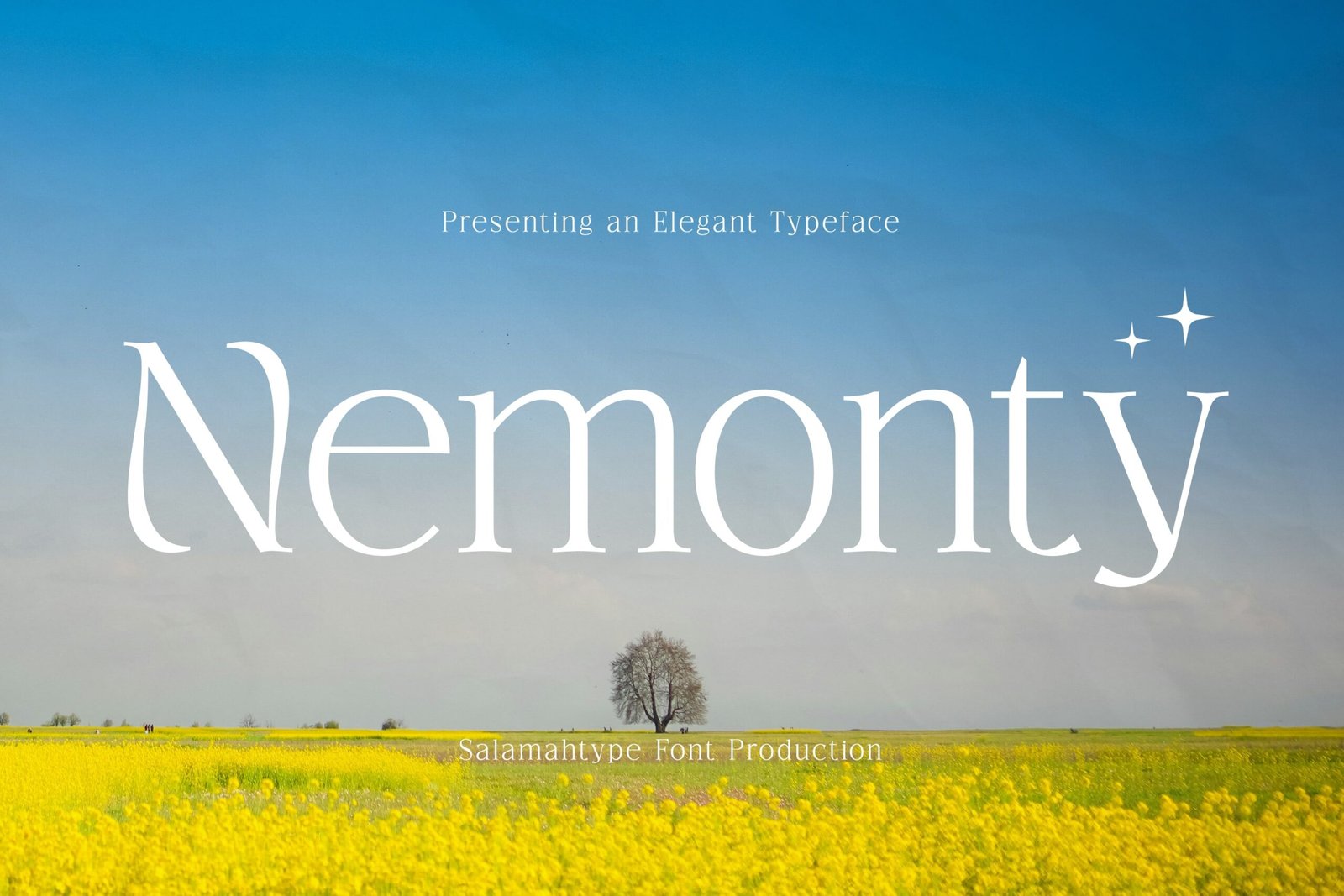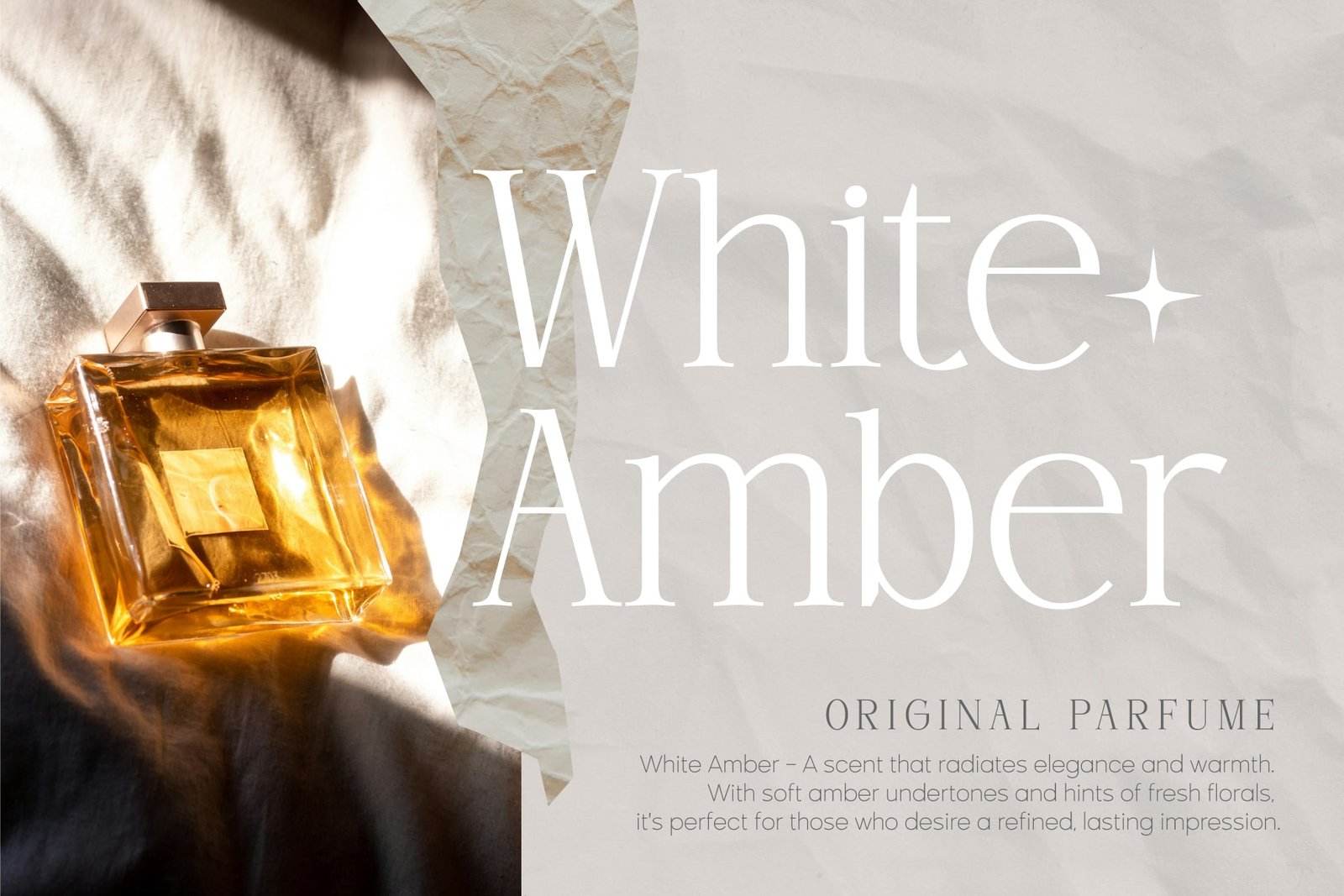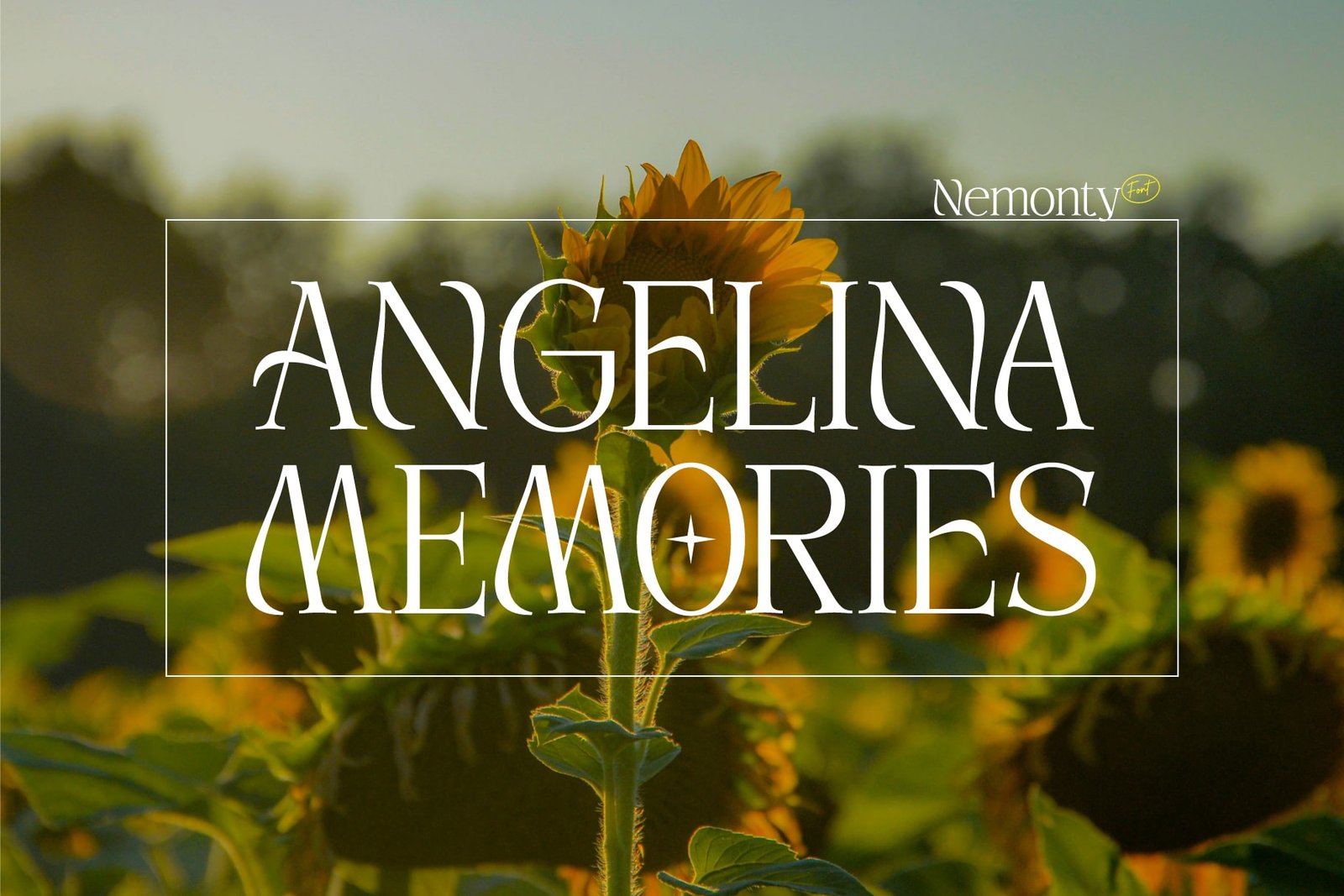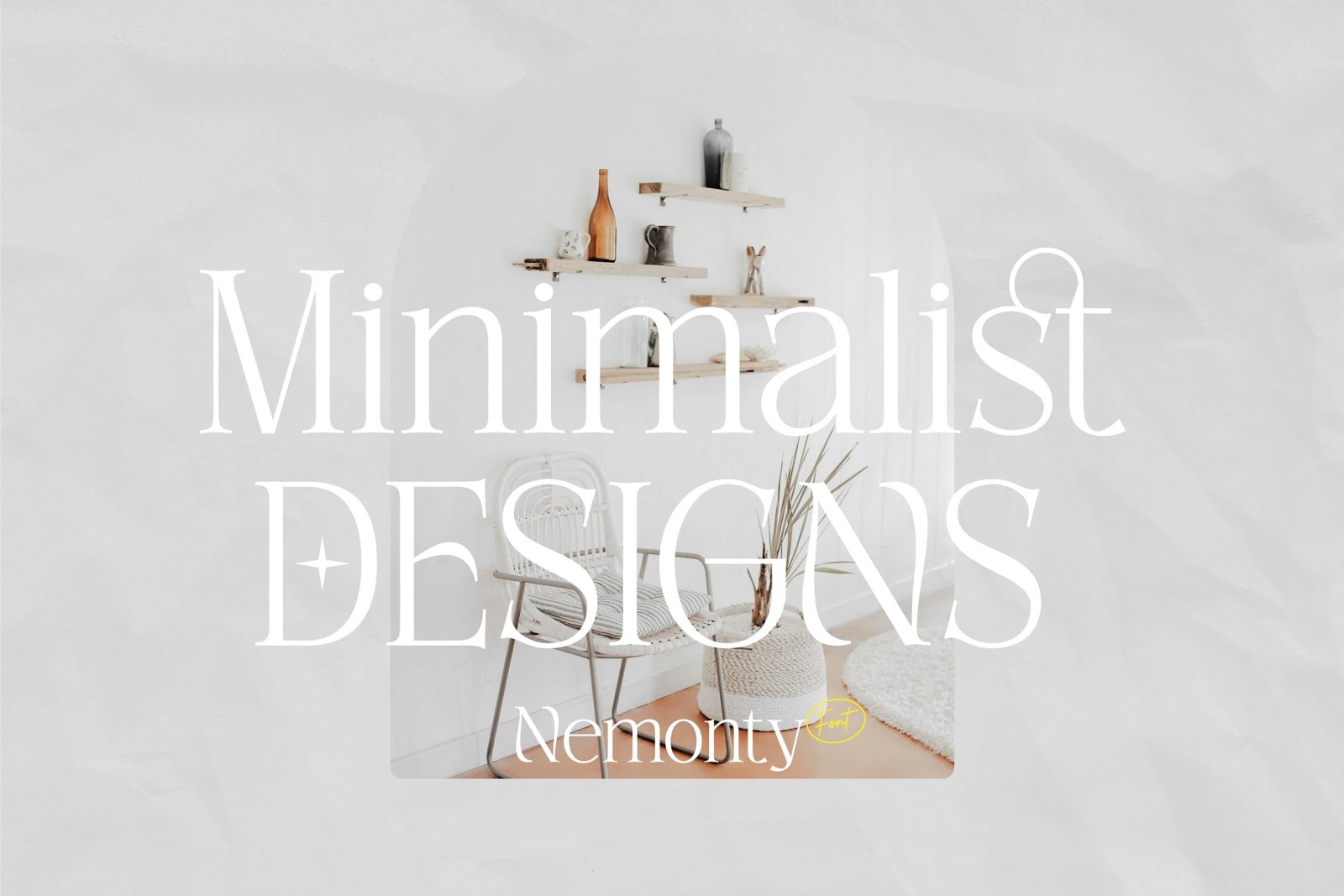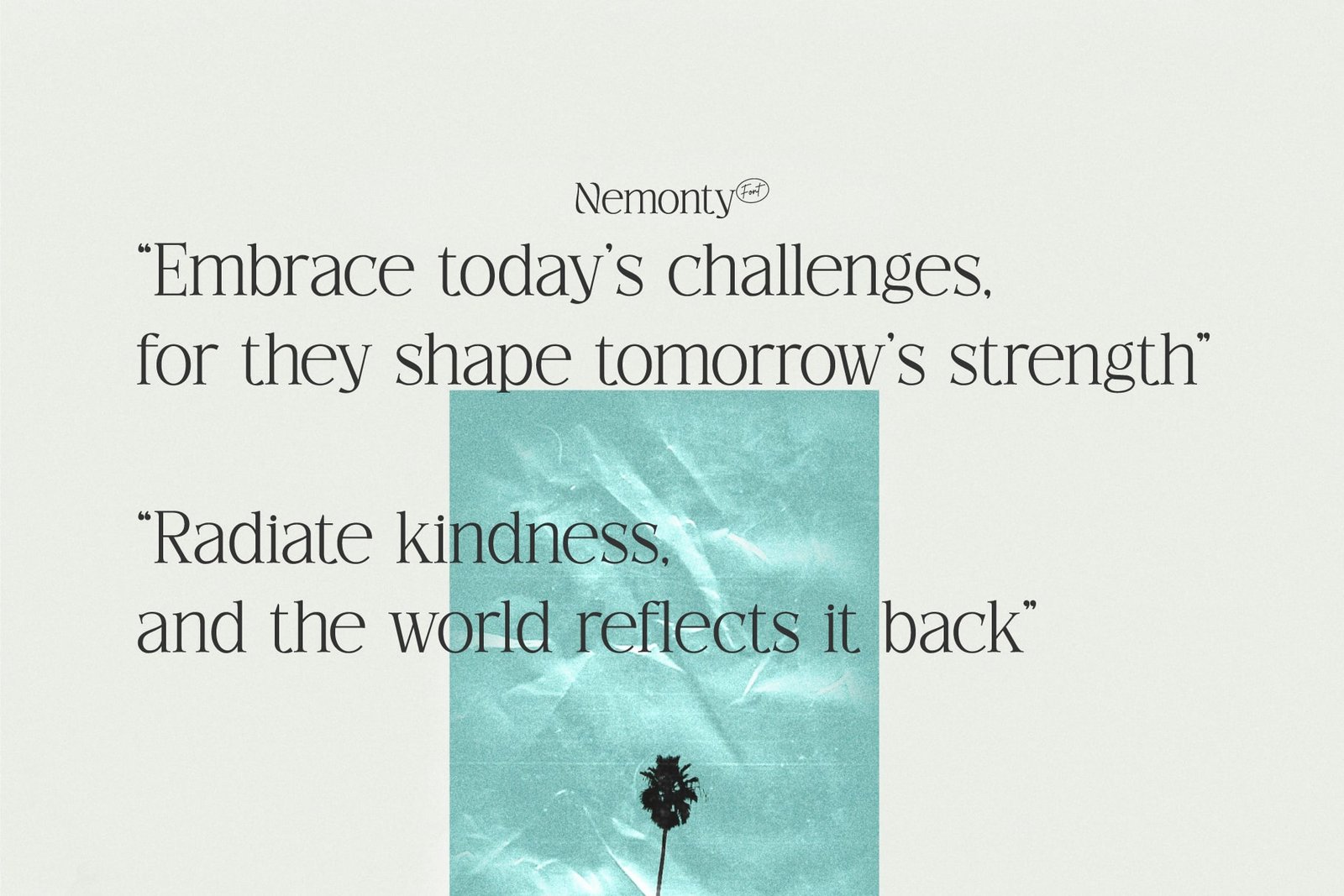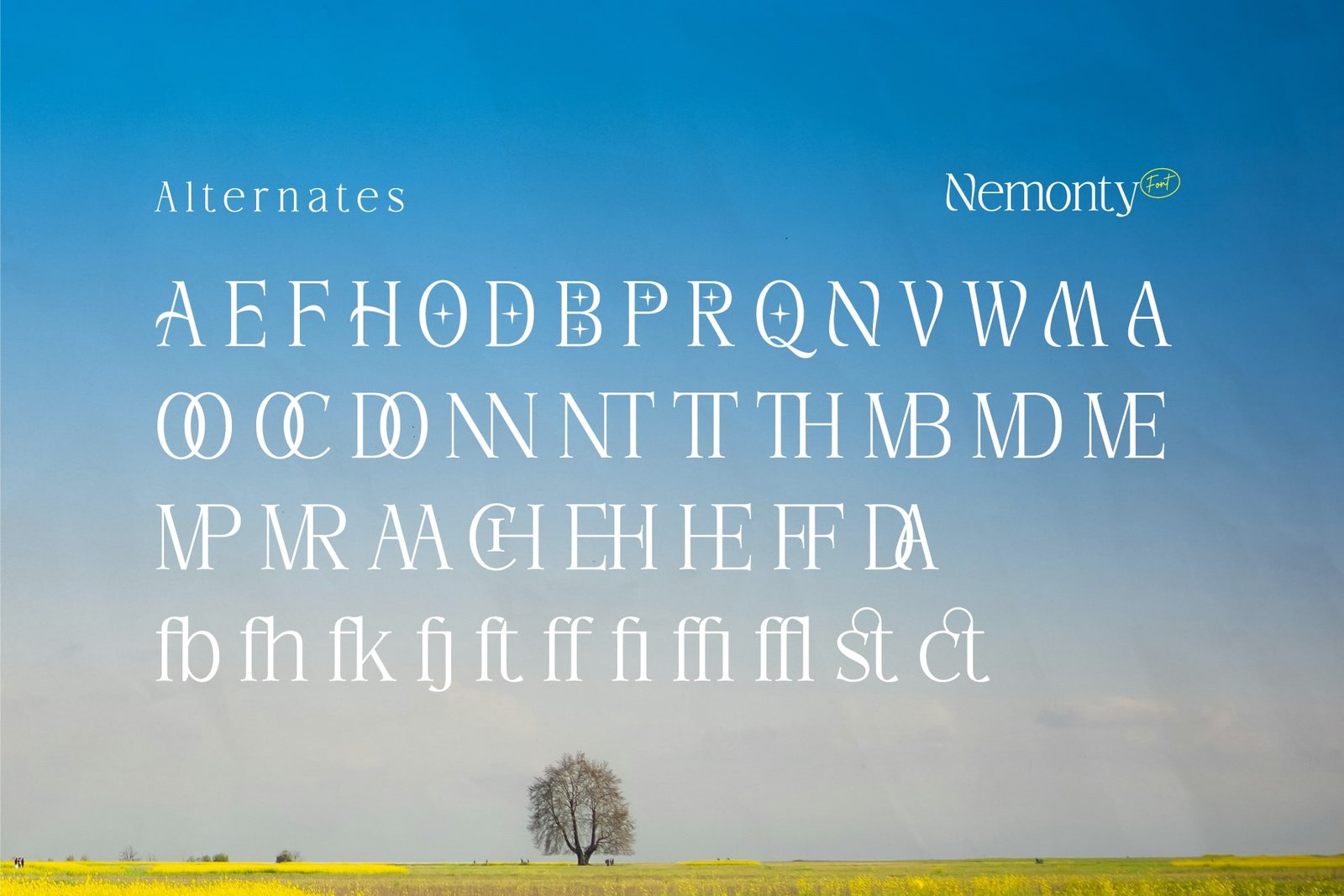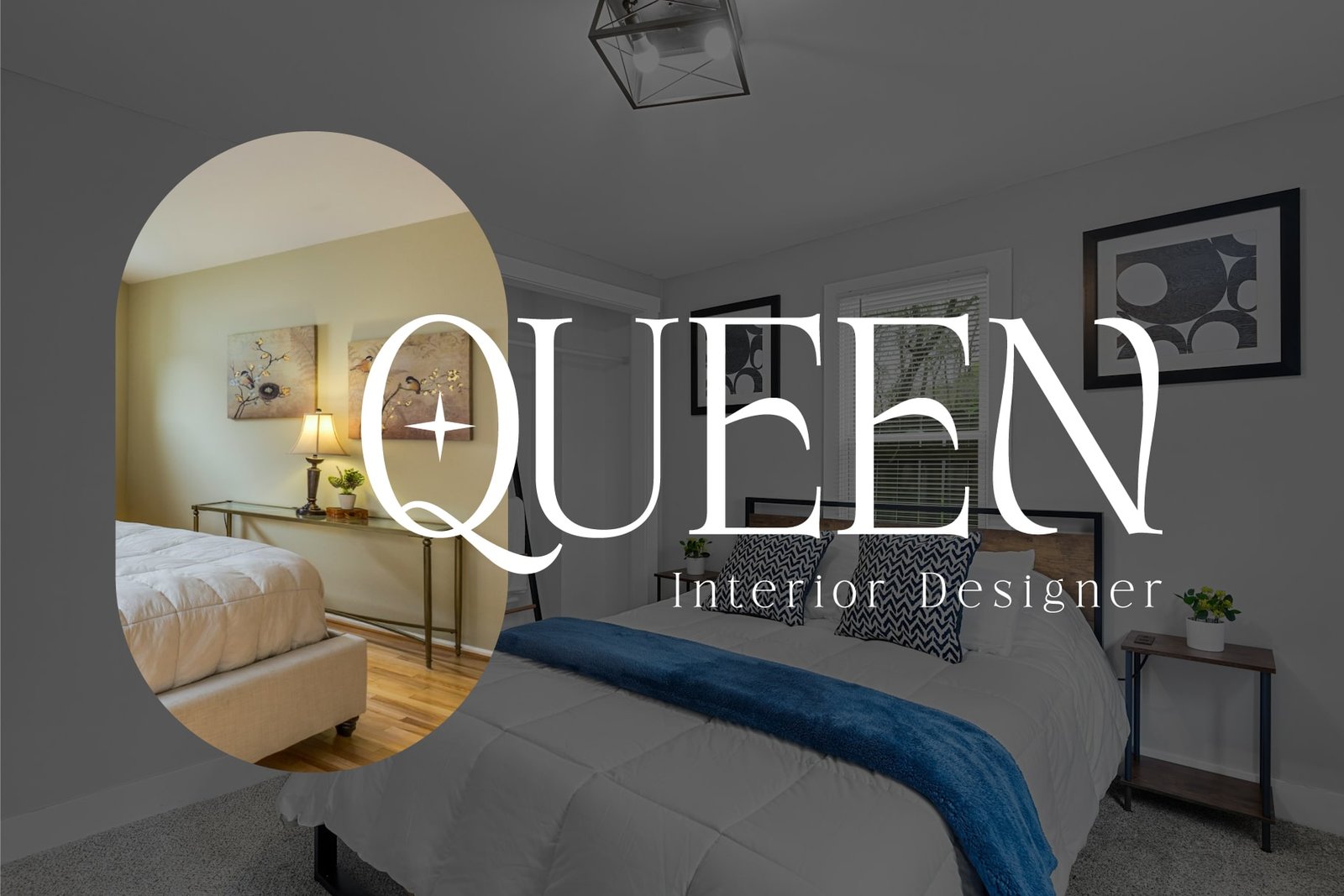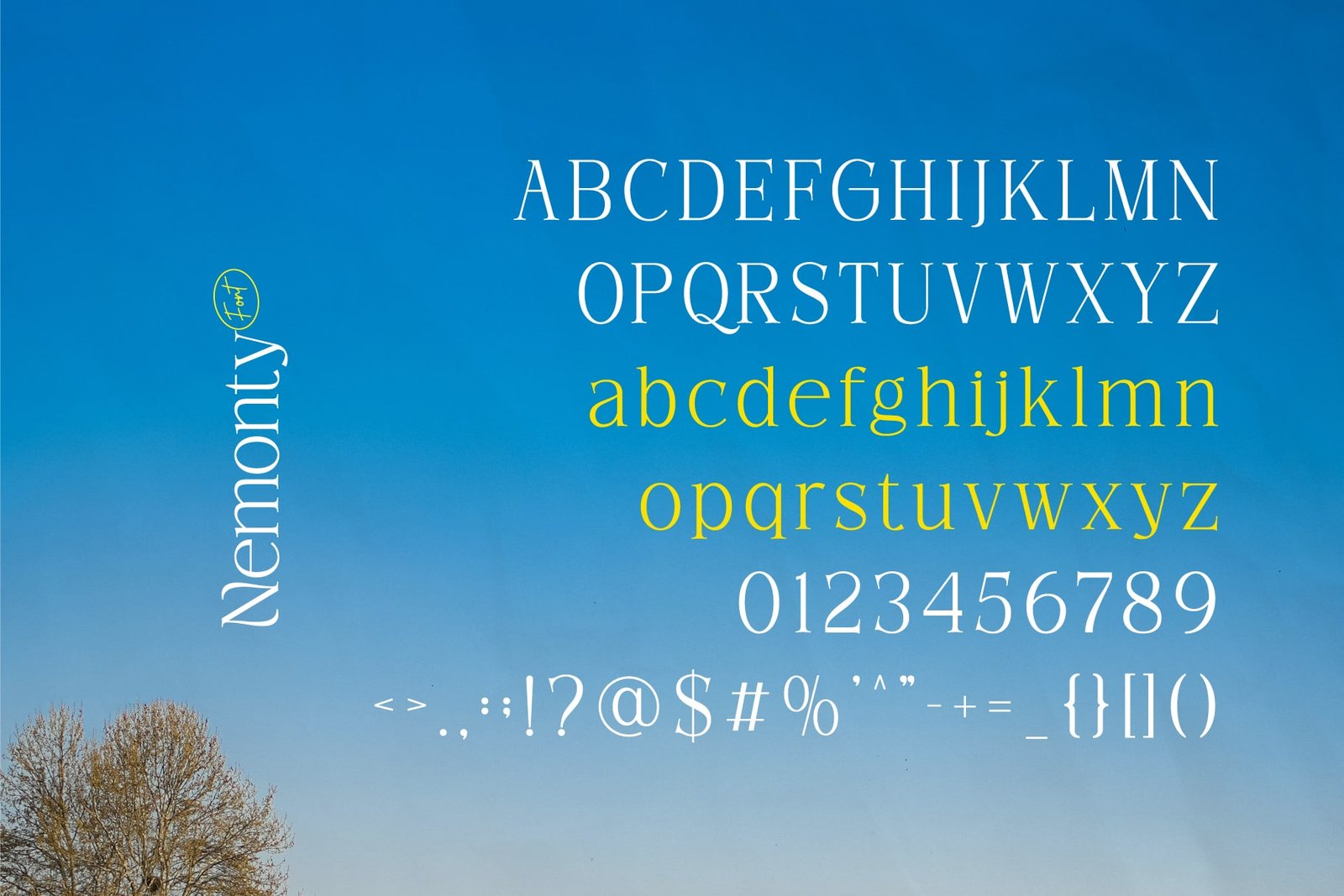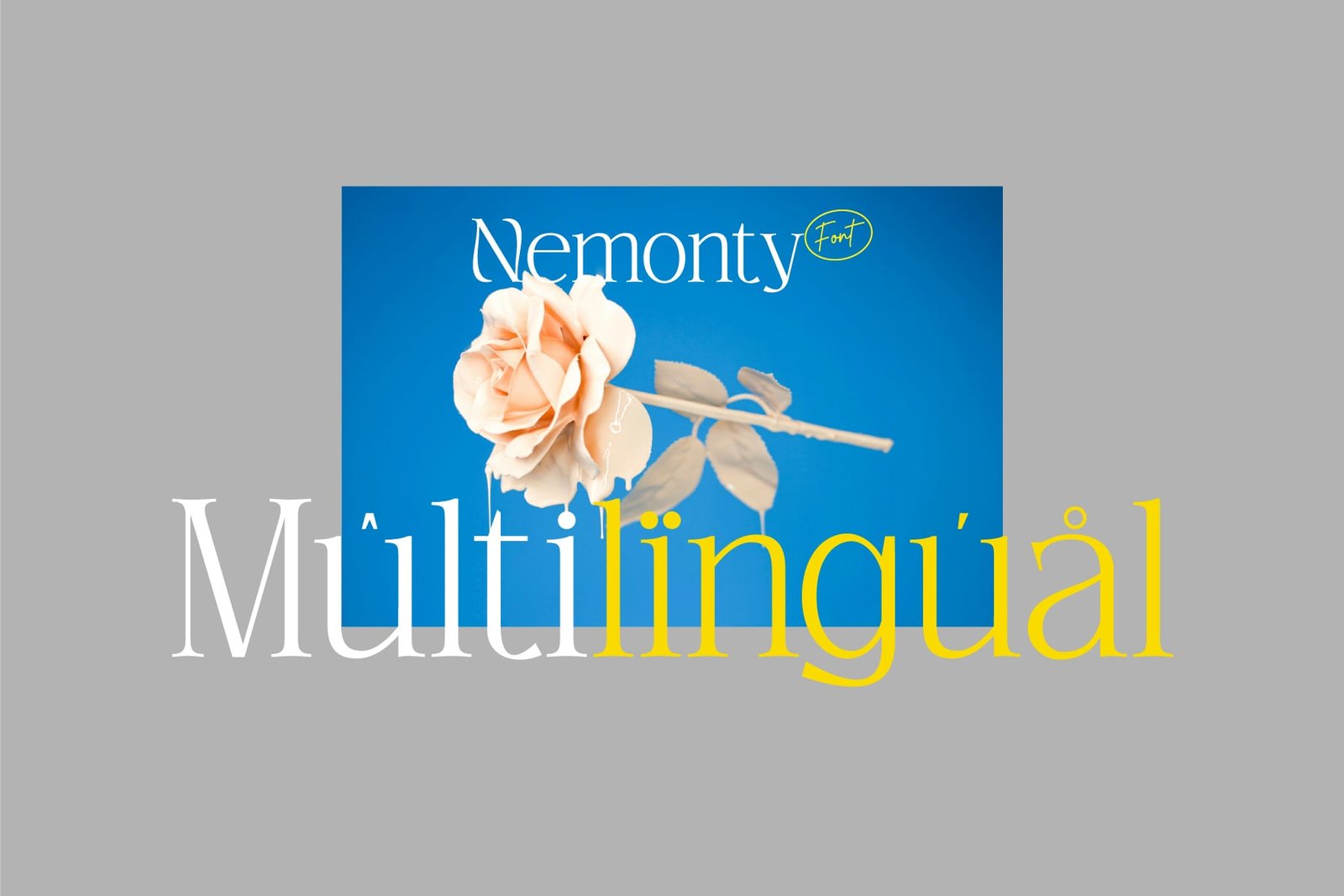
- Nemonty – Minimalist Font
Nemonty
Introducing Nemonty – a graceful, thin serif font designed to highlight your brand image. With its elegant, minimalist strokes, Nemonty is made to highlight modern logos. The font’s thin structure and balanced shapes add a touch of refinement, perfect for boutique brands and creative projects that require an understated yet impactful look.
Nemonty includes a range of alternates, providing creative flexibility for custom wordmarks and unique logo designs. Ideal for luxury branding, packaging and editorial use, this font’s versatility and elegant style make it a must for designers looking to achieve a sleek and professional aesthetic. Make your projects stand out with the modern, minimalist Nemonty font
- Uppercase Lowercase
- Symbols and Punctuation
- Ligatures
- Alternates
- Multilingual Support